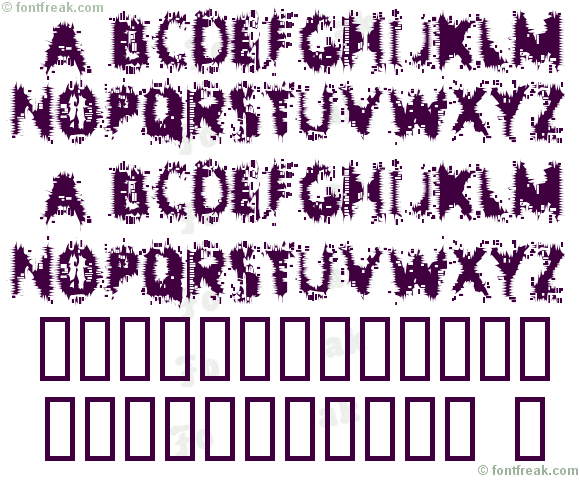
Entropy
About Entropy
The Entropy font by Rob Dobi is a striking display typeface that captures attention with its unique visual style. Characterized by irregular, distorted letterforms, this font embodies a sense of chaos and unpredictability, making it a standout choice for creative projects. With its varying stroke weights and lack of uniformity, the Entropy font has an edgy, avant-garde quality that evokes a feeling of disruption and energy. The spacing between characters is intentionally uneven, contributing to its raw aesthetic, while the decorative elements add a touch of intrigue.
This font is particularly well-suited for a variety of specific use cases. Its bold, eye-catching design makes it ideal for music album covers, where capturing the essence of sound visually is crucial. Additionally, it can be effectively utilized in promotional materials for art galleries or experimental events, where a sense of modernity and innovation is desired. Restaurant menus that aim to convey a trendy or unconventional vibe can also benefit from Entropy's distinctive character. Furthermore, it’s perfect for digital content aimed at a younger, edgy audience, such as social media graphics or blog headers that want to stand out.
The target audience for the Entropy font includes graphic designers, small business owners, and content creators looking to make a bold statement in their projects. This font is particularly appealing to those in creative industries who wish to push boundaries and explore unconventional aesthetics.
What truly sets the Entropy font apart is its ability to evoke emotion and captivate viewers. Its unique design not only serves as a visual element but also tells a story of chaos and creativity. For those seeking a distinctive typeface, the Entropy font free download offers an opportunity to elevate any design project with its unforgettable flair.